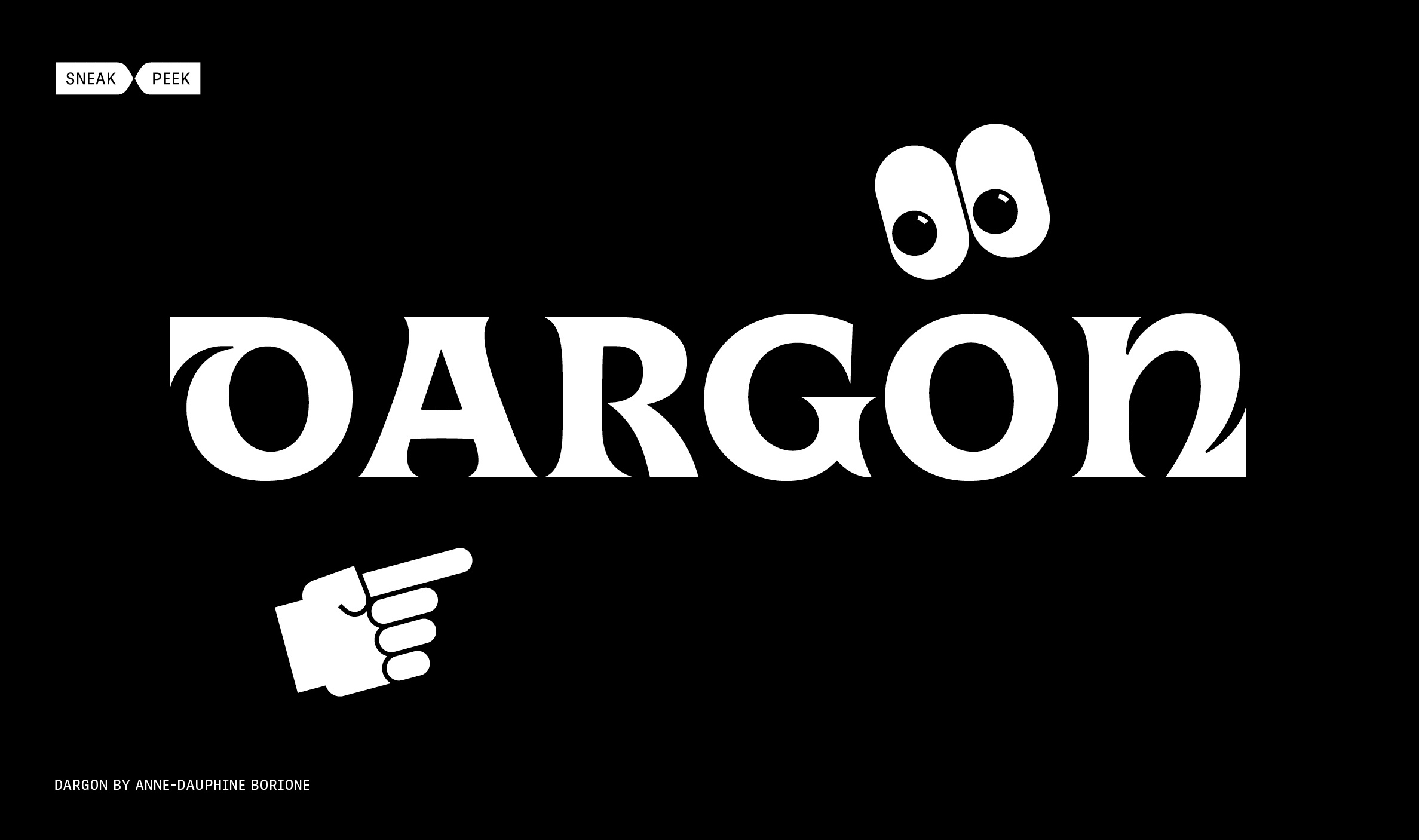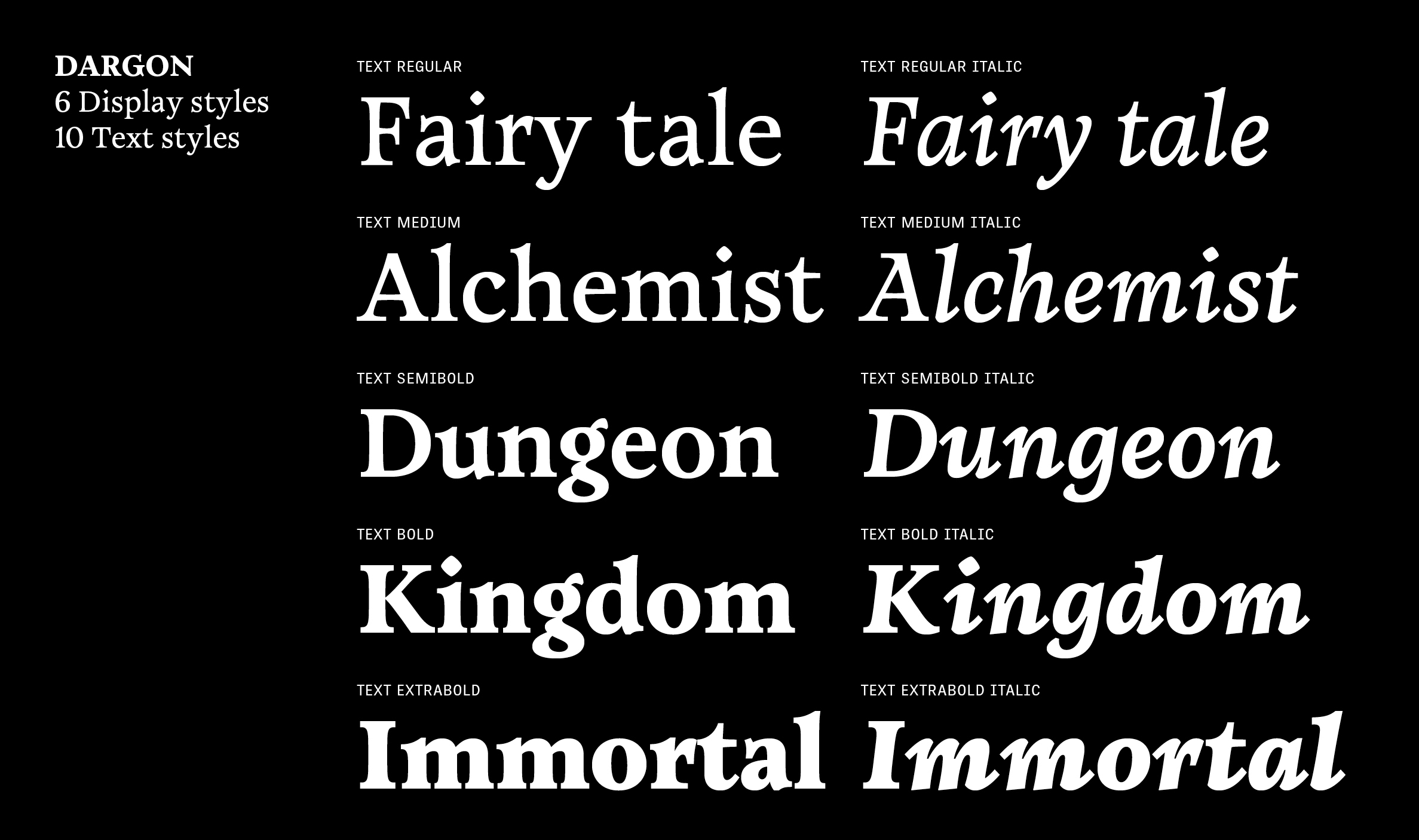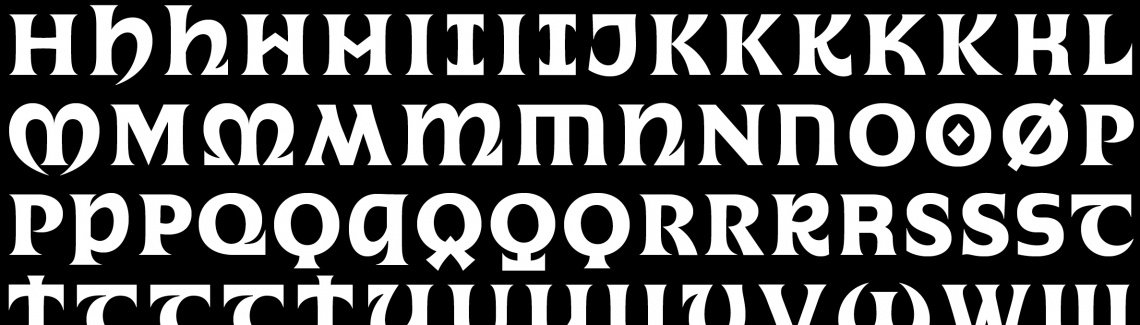
Anne-Dauphine ‘Ando’ Borione’s eagerly-awaited Dargon type family is still a few weeks away, but we wanted to give you a sneak peek at one of the year’s most-eagerly awaited typefaces.
Dargon is a type family with a text, italic, and six uncials, named Ignis, Limen, Mutatio, Oculus, Aegis, and Umbra. While Dargon is inspired by gaming and fantasy, Ando has done the hard work, researching uncial and stone-carved letterforms, and it shows.
“I believe typography is a fantasy, an artistic endeavour, a universe in itself,” Ando says. “Type enhances my reality, it is a conduit for enchanting myself, a portal to realms yet unseen. One might see type as purely utilitarian; I see it as a powerful source of magic.”